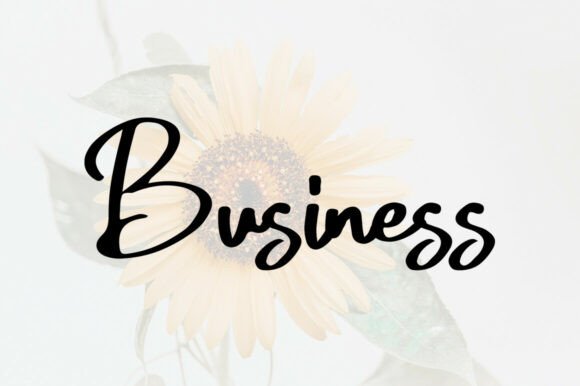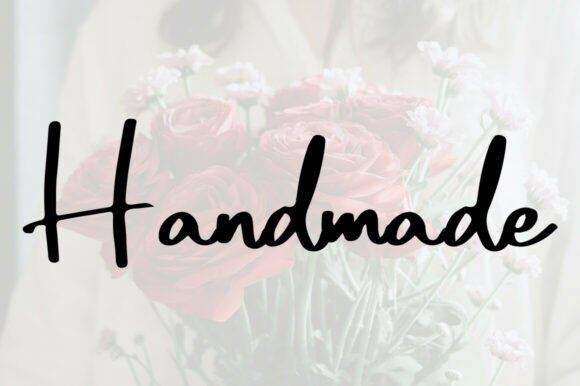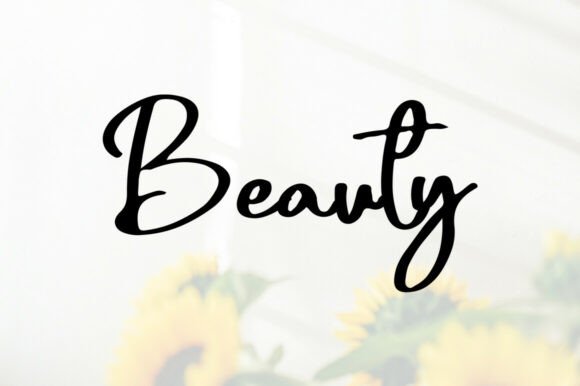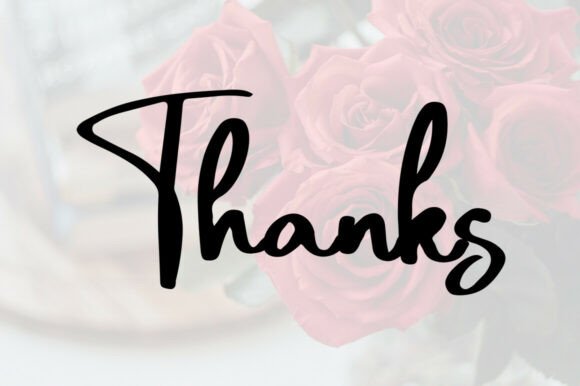
The Perfect Script: Unleashing the Magic of Breakday Font
As a designer, there’s nothing quite like the thrill of finding the perfect font to bring your creative vision to life. It’s that moment when you stumble upon a unique combination of elegance and whimsy, and you know you’ve hit the jackpot. For me, that moment came when I discovered the Breakday Font – a delightful script font that’s as cute as it is sophisticated.
Breakday Font is the perfect solution for designers looking to add a touch of fun and personality to their designs. Whether you’re crafting wedding invitations, birthday cards, or any other project that requires a playful twist, this font is sure to bring a smile to your clients’ faces. Its versatility and charm make it an invaluable addition to any designer’s toolkit.
- Unique Characteristics: The font features a distinctive, modern aesthetic with a unique blend of geometric and organic elements, making it ideal for contemporary design projects.
Breakday Font Review
Overall, I think the Breakday Font has some nice qualities, but also some areas for improvement. Let’s dive in!
- The Breakday Font has a unique and quirky feel that could be perfect for creative or playful projects. Its irregular shapes and varying letter heights add a lot of character.
- The font is highly legible, even at smaller sizes, which makes it suitable for body text or smaller headings.
- The font’s x-height is relatively high, making it easy to read for people with vision impairments.
- The Breakday Font can be overwhelming for larger blocks of text, as its irregular shapes and varying letter heights can create visual noise.
- The font may not be the best choice for formal or corporate projects, as its playful feel may not convey the desired level of professionalism.
- The font lacks a clear hierarchy, making it difficult to create clear visual relationships between different elements.
The Breakday Font is a great choice for projects where you want to add a bit of whimsy and personality. However, it may not be the best fit for more formal or structured projects. With some careful planning and use, this font can be a fun and effective addition to your design arsenal.
Breakday Font is ideal for creating bold, eye-catching headings in Canva. Use it to add a touch of modernity to your designs.
Breakday Font is versatile and can be used in a variety of design contexts in Adobe Photoshop and Illustrator.
Breakday Font is a great choice for creating attention-grabbing titles and headings in PowerPoint and Word.
Breakday Font is ideal for use in modern and minimalist designs. It’s perfect for creating bold headings, titles, and captions. Use it in combination with other design elements to create a cohesive look.
- Choose a bright and bold color for the font to match the energetic vibe of the board.
- Use Breakday Font for motivational quotes and messages to create a sense of excitement and motivation.
- Combine Breakday Font with simple graphics and icons to add visual interest.
- Use a mix of bold and cursive fonts to create visual contrast and add depth to the design.
- Choose a background image or color that complements the bold and bright colors of the font.
Unlocking Creative Possibilities with Breakday Font
Project 1: Morning Motivation Board
Create a visually appealing morning motivation board using Breakday Font. This project is perfect for those who want to start their day with positivity and inspiration.
Project 2: Breakday Social Media Campaign
Create a social media campaign using Breakday Font to promote a brand or product. This project is perfect for those who want to create engaging and attention-grabbing content.